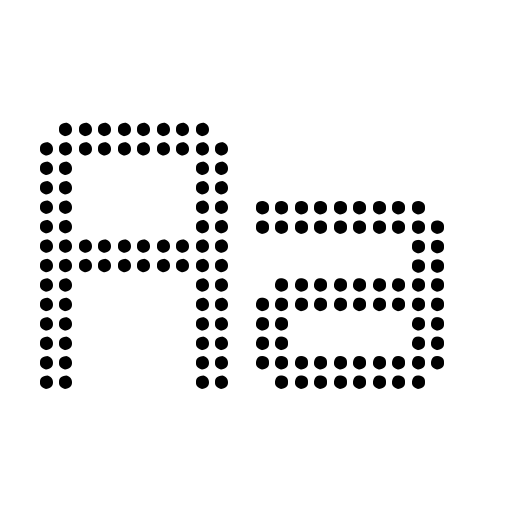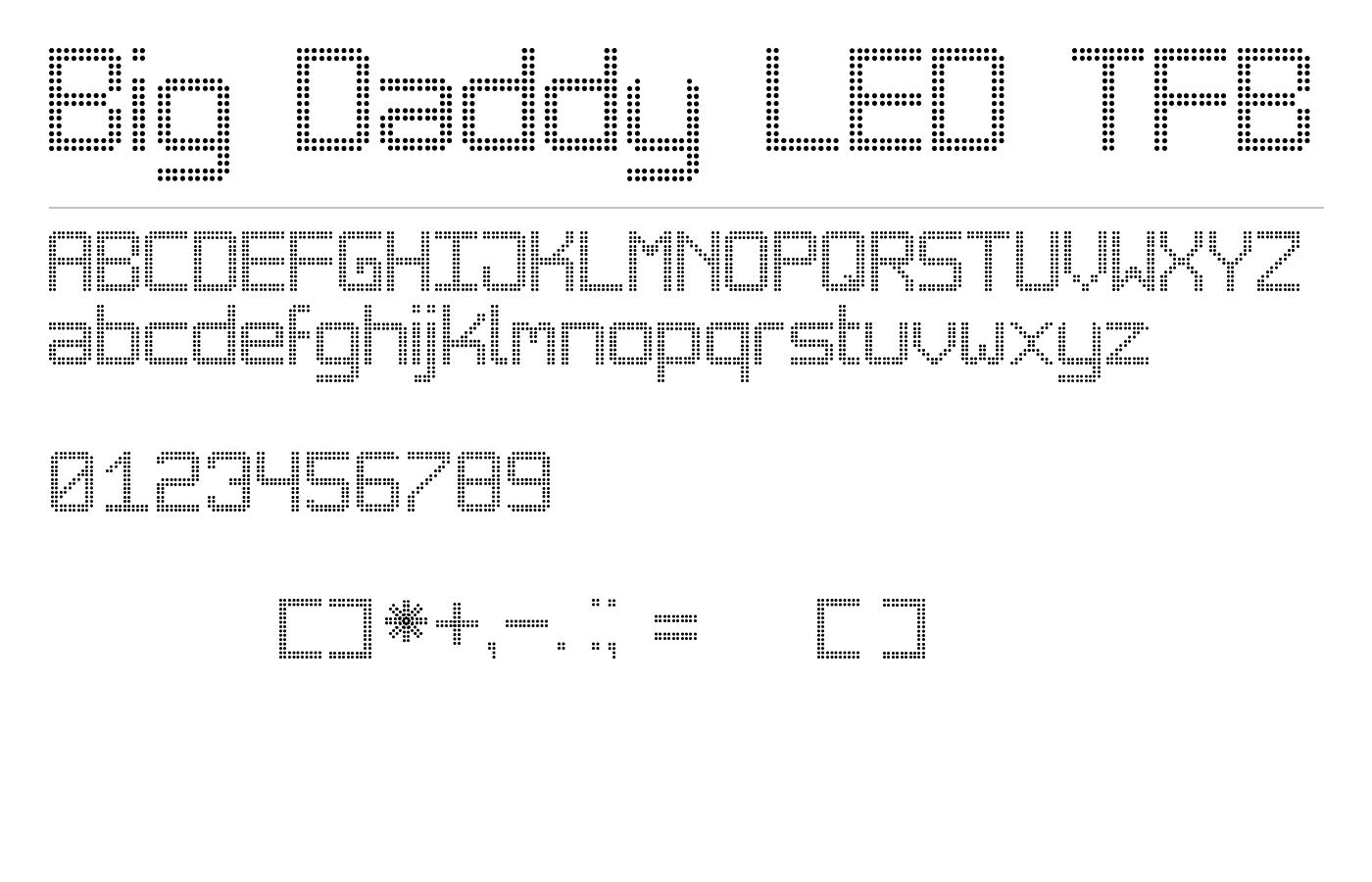
Big Daddy LED TFB is a distinctive sans serif display font that mimics the look of retro LED dot matrix screens, with each character crafted from a grid of small, evenly spaced dots. This font has a monospaced, technical feel with medium x-height and uniform stroke weight, giving it a modern, digital, and slightly playful personality. It works best for headlines, signage, and tech-themed designs where a vintage electronic or futuristic vibe is desired.
Big Daddy LED TFB Font
About Big Daddy LED TFB Font
| Font family | Big Daddy LED TFB Font |
| Designer | kaiser zhar khan |